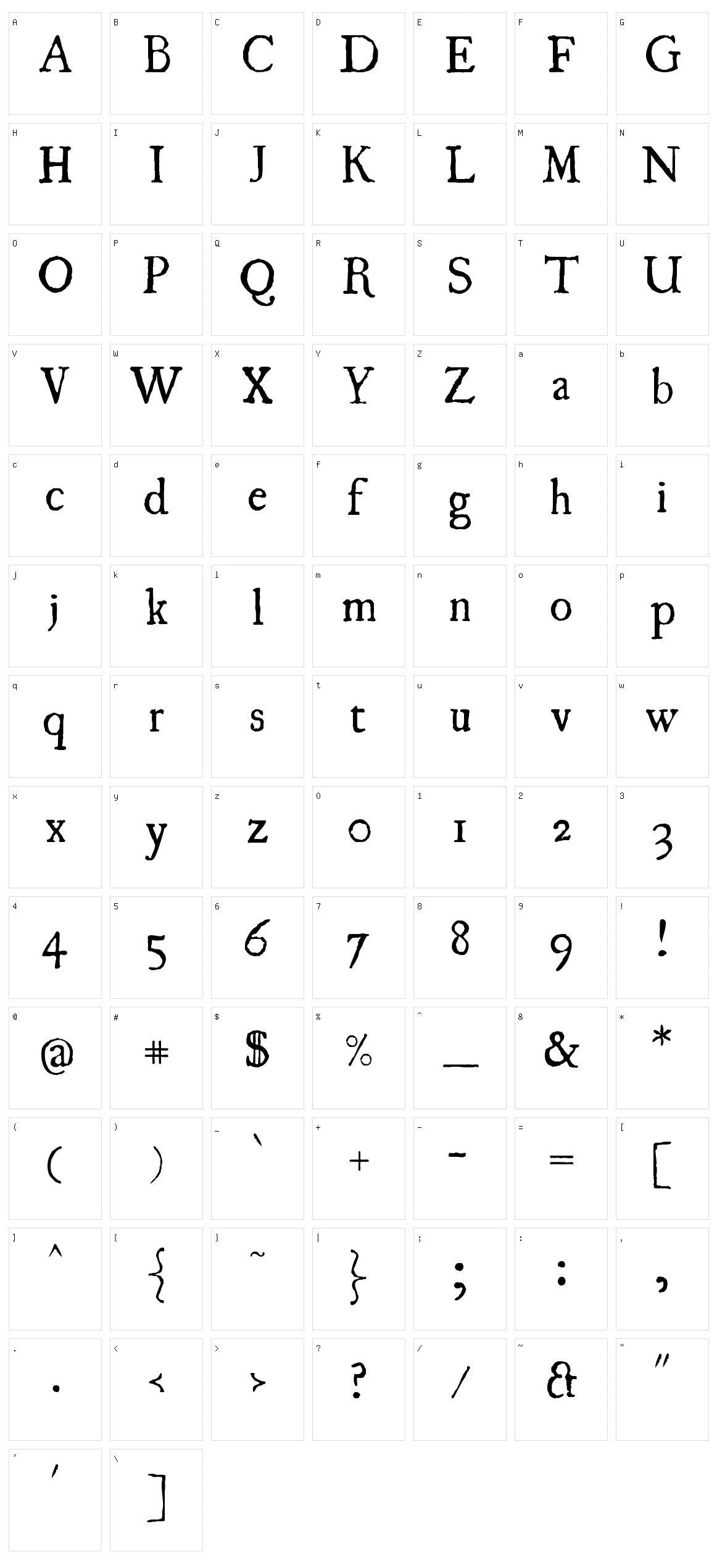
The free font UglyQua is carefully designed by Manfred Klein, showcasing a thoughtful balance of creativity and usability and falls under the Eroded font style. When you download the ZIP file, it contains only 160.33 KB of font files, making it lightweight and quick to download. Please review the license details below to understand permitted usage and distribution rights. If license information is not available, we recommend using this font for personal projects only or contacting the author directly for commercial usage permissions.